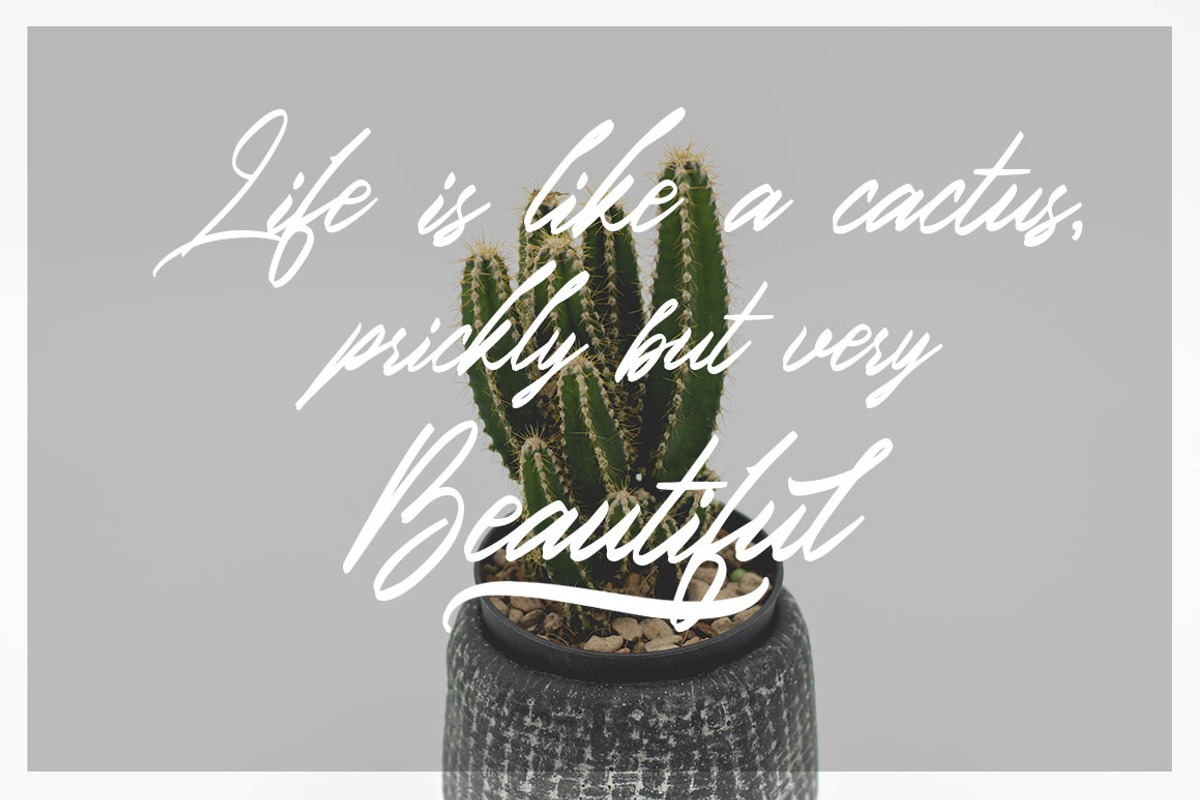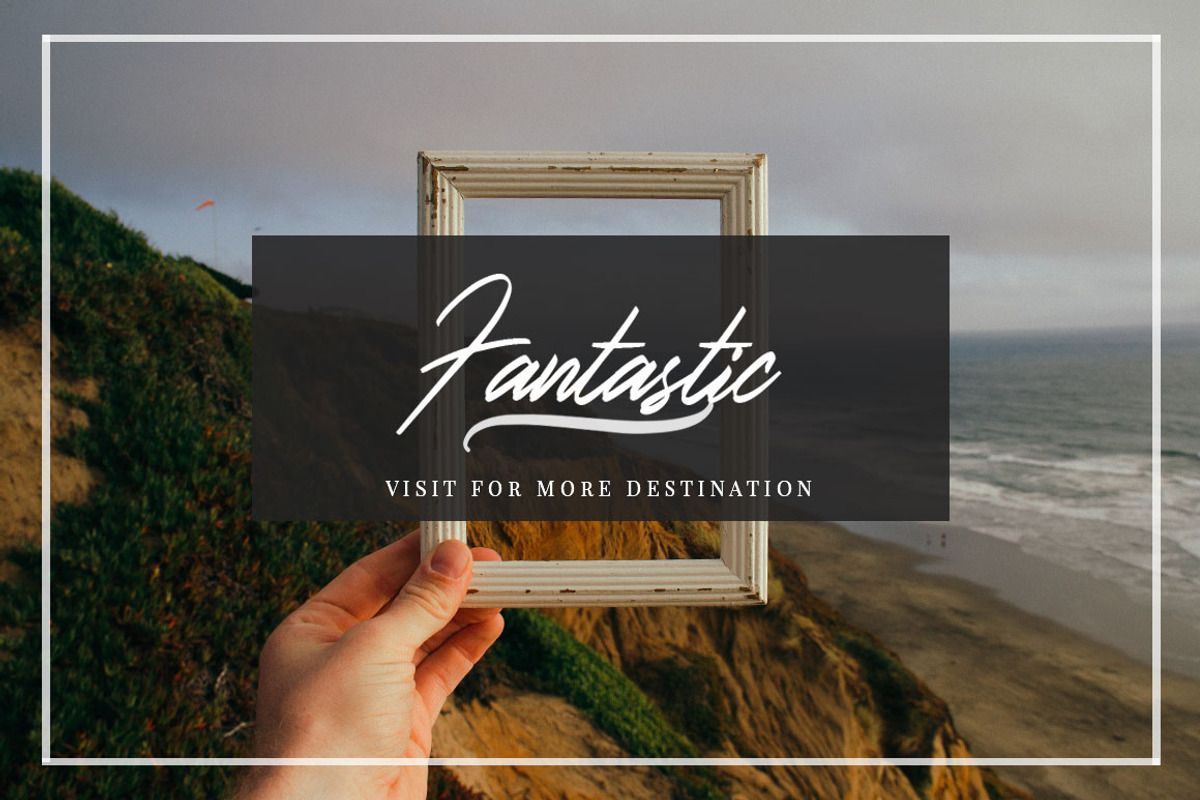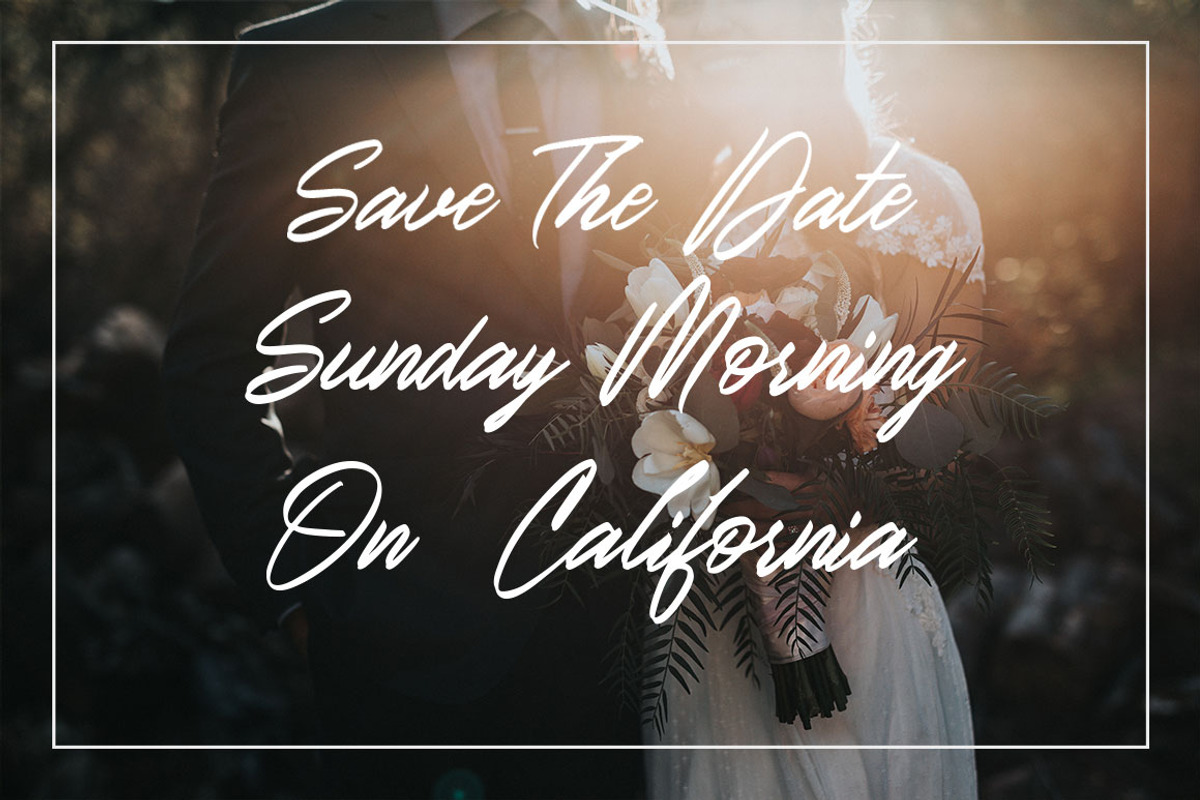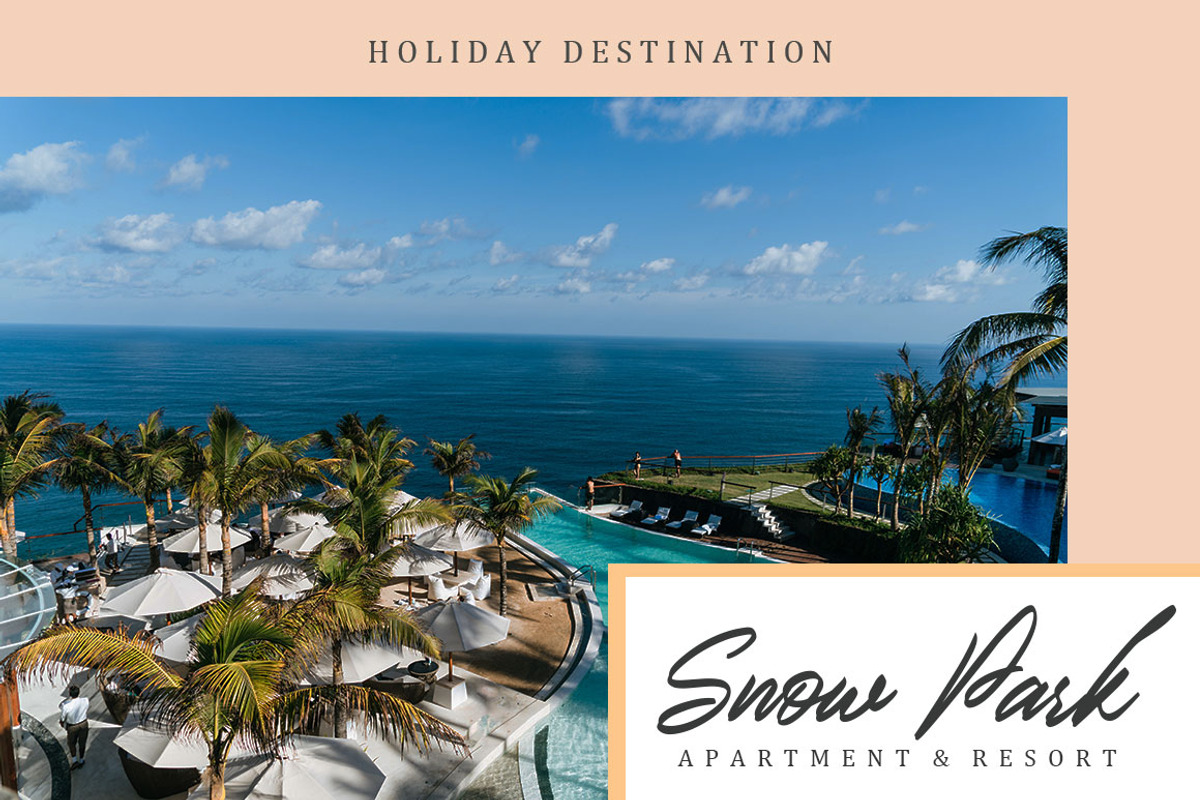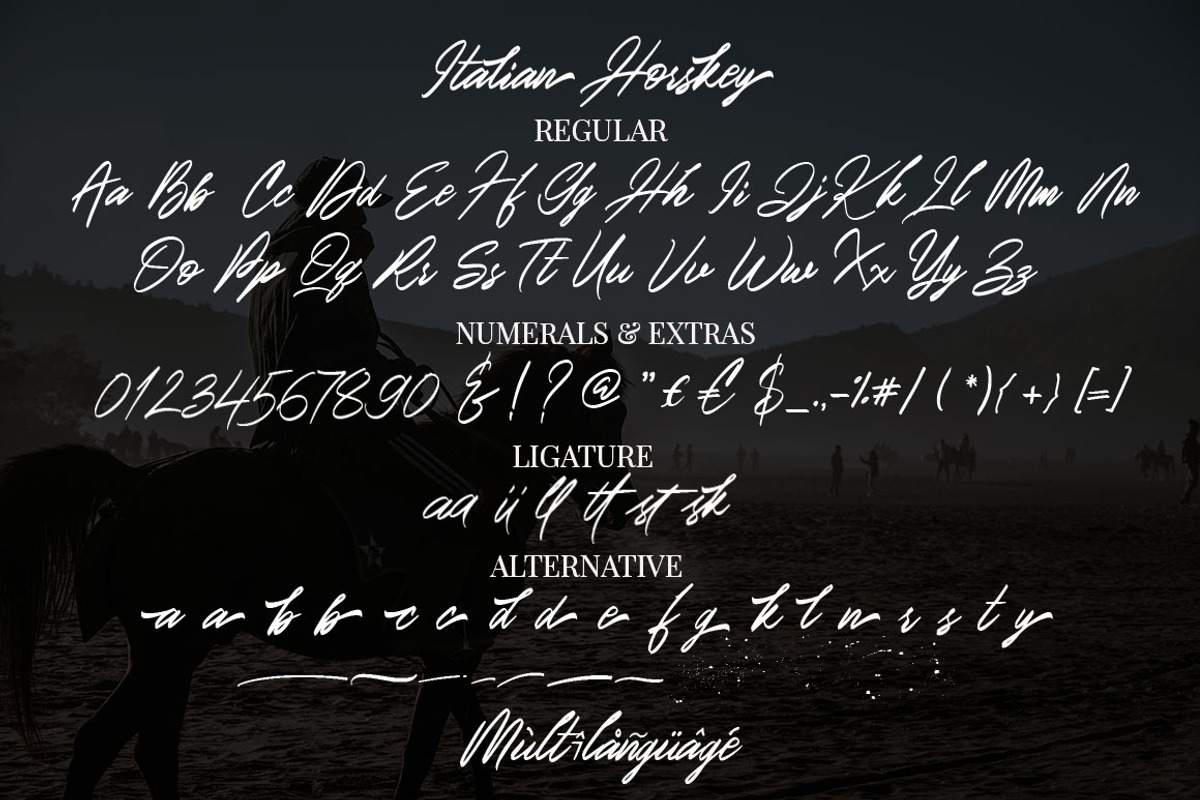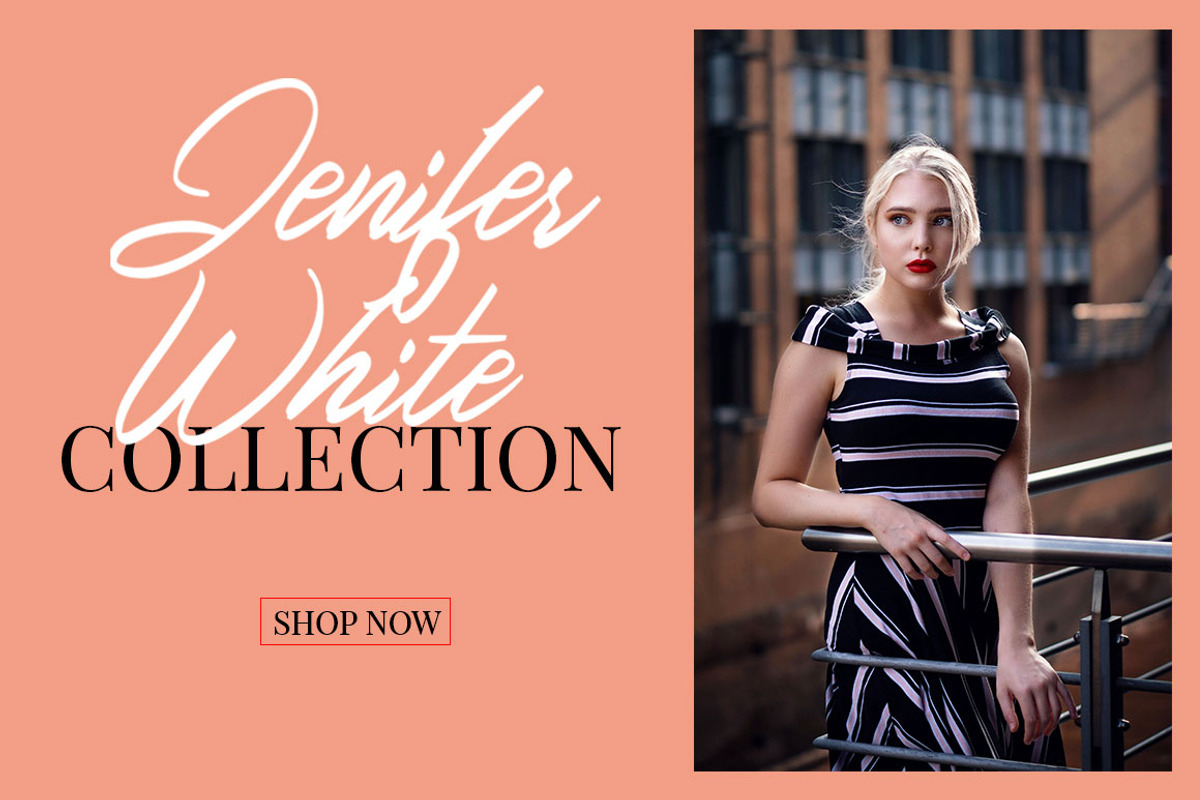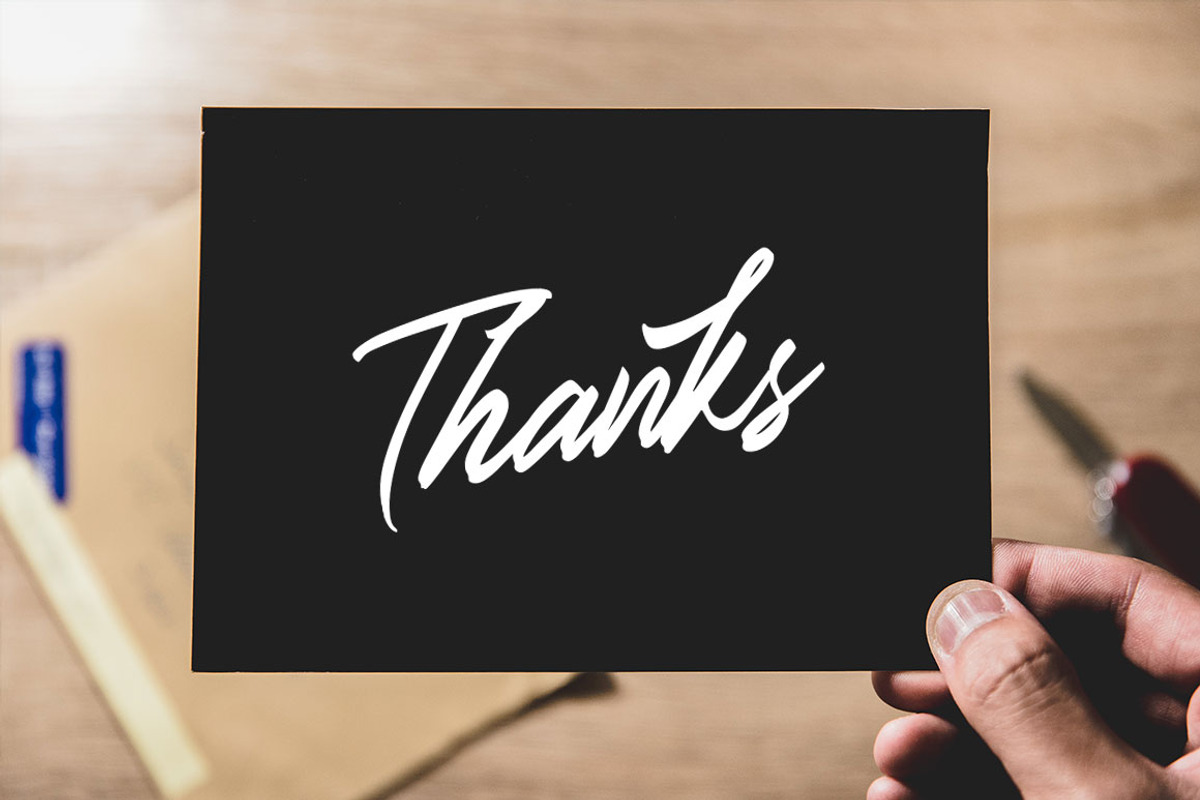
Italian Horskey Signature
Italian Horskey Signature Handlettering Script is new fashionable handwriting font and super cool with sexy style. And also the Capital letters with contemporary and sophisticated accents. Italian Horskey Signature Handlettering Script offers beautiful typographic harmony for a diversity of design projects, including logos & branding, wedding designs, signature, social media posts, advertisements & product designs.
Italian Horskey Signature Handlettering Script includes full set of lovely uppercase and lowercase letters, ligature, multilingual symbols, numerals, and punctuation. And this Font has given PUA unicode (specially coded fonts).
- Alternative Stylistic
- Stylistic Set
- Multilanguage Support